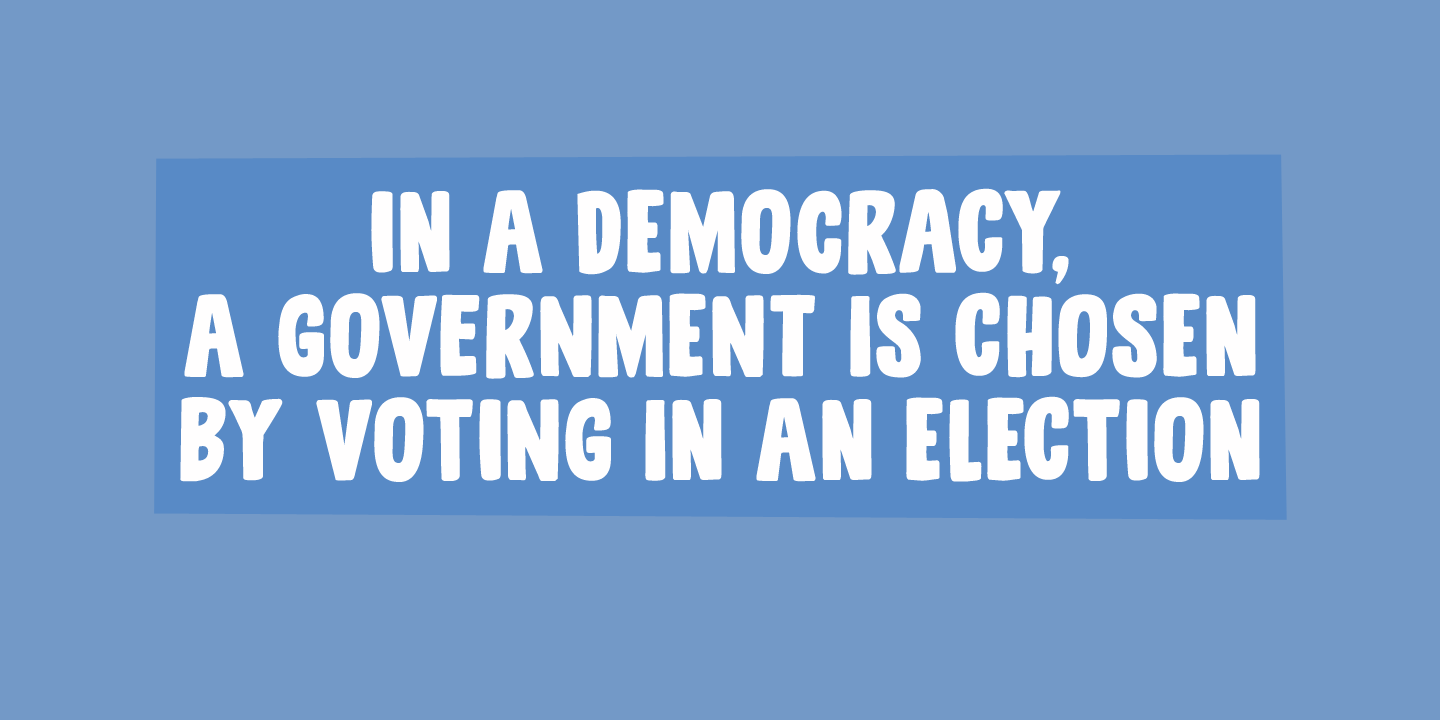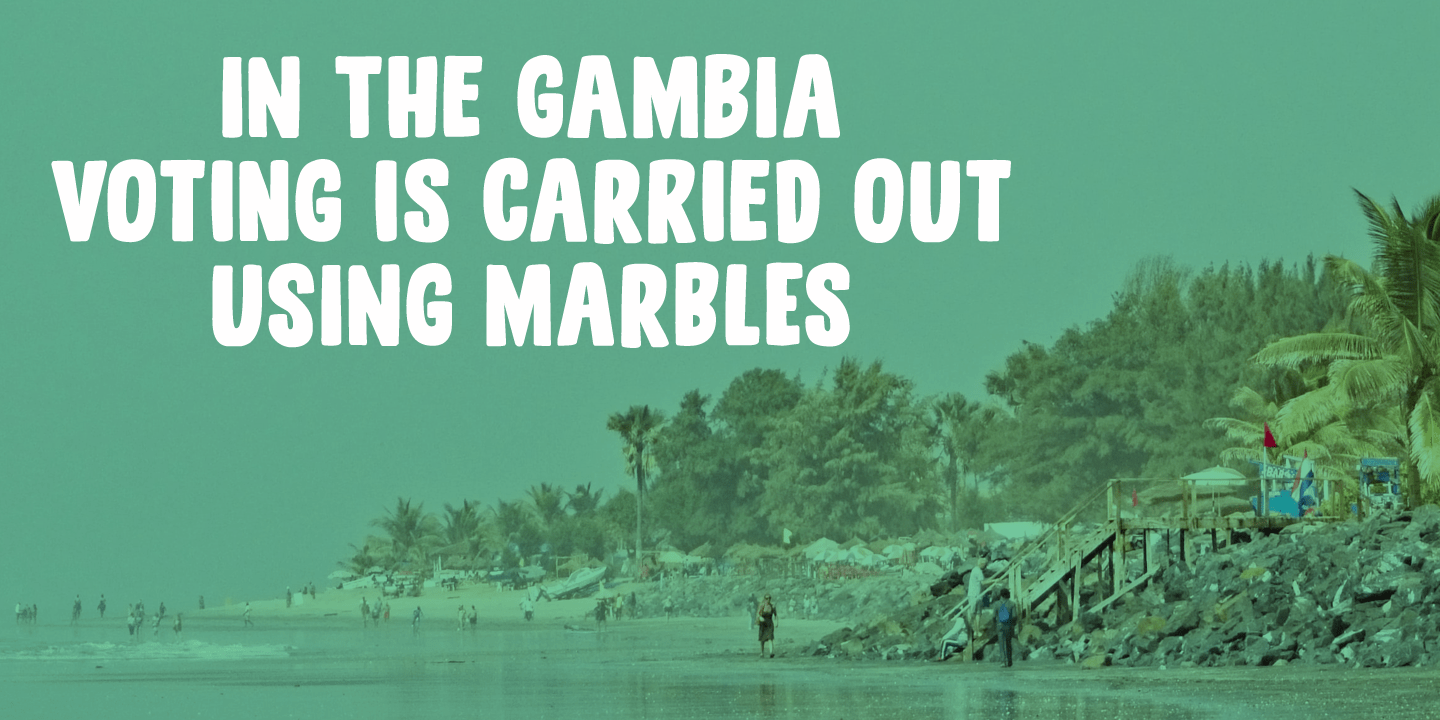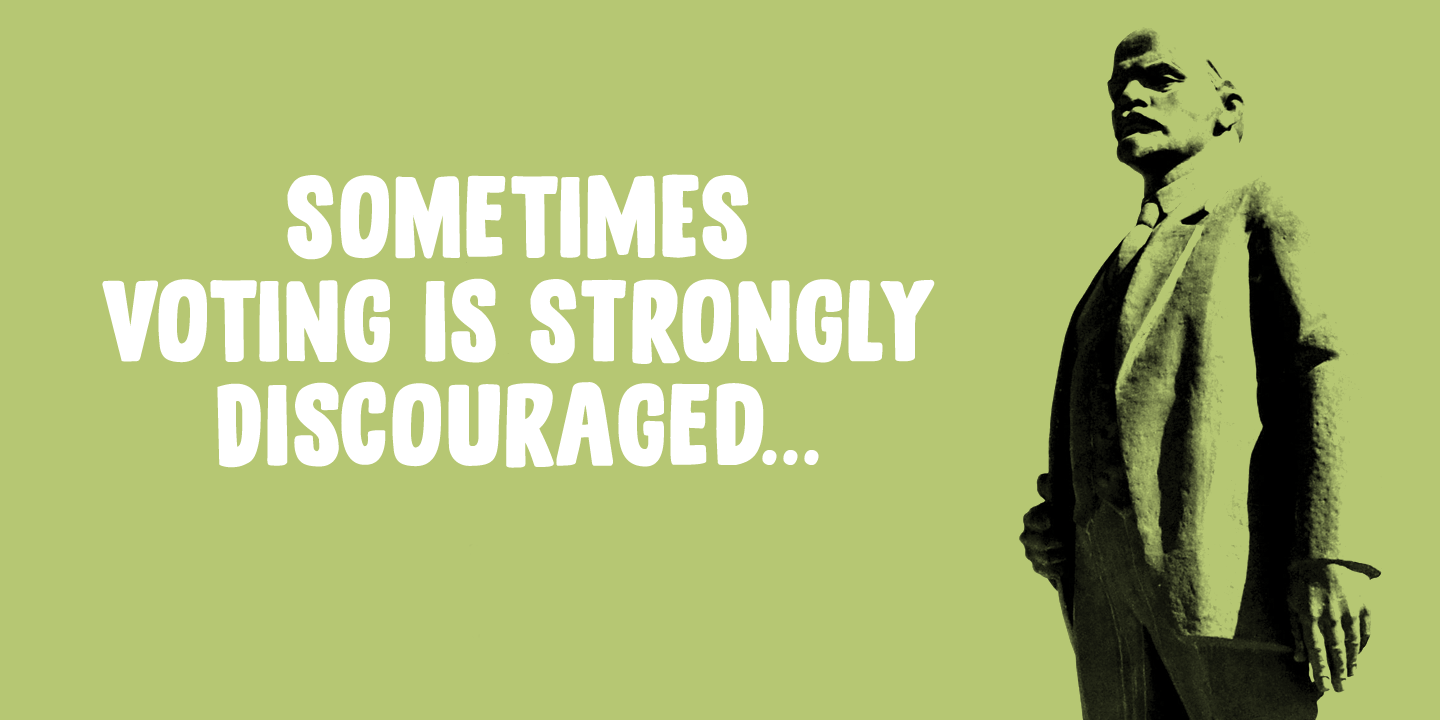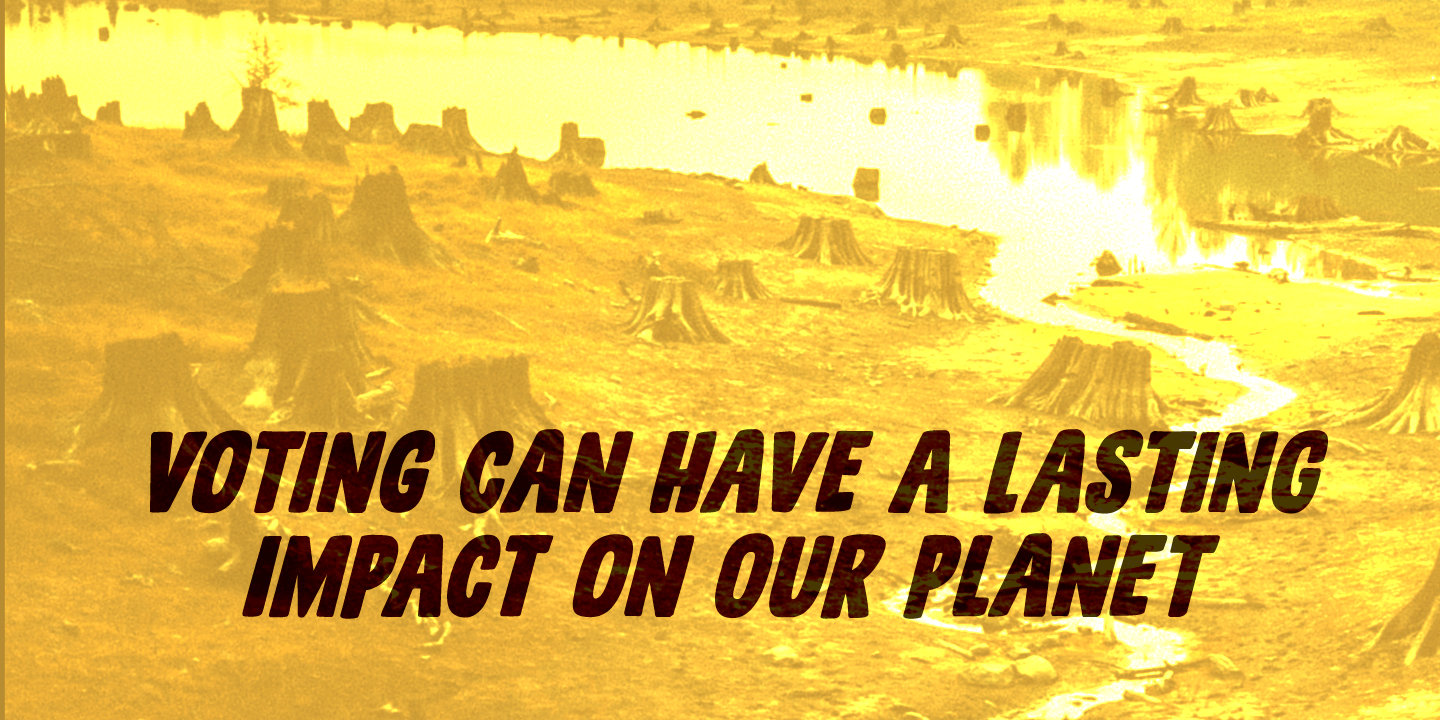
I made this font during the rather hectic start of 2021. Popular Vote is an easygoing, laid-back kinda font. It fits just about anywhere, regardless of your political orientation, your sense of aesthetics or the job you will use it for. Popular Vote…